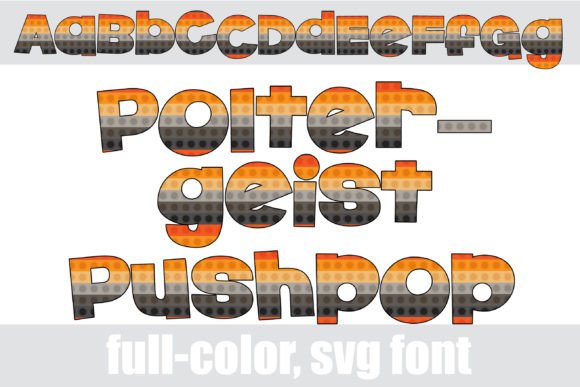
Unleash the Spooktacular Spirit: Poltergeist Pushpop Font - A Bewitching Typeface for Hauntingly Creative Designs
As darkness descends and the veil between worlds thins, let the Poltergeist Pushpop Font cast its spell on your Halloween designs. This spellbinding typeface, conjured by the masters of Illustration Ink, exudes an eerie charm with its vibrant and devilishly delightful hues.
Crafted with the essence of the supernatural, Poltergeist Pushpop Font is the perfect tool to materialize your haunting visions. Bathe your posters, invitations, and social media graphics in an otherworldly glow, leaving your audience spellbound.
Imagine the spine-tingling thrill of crafting a poster that pulsates with the vibrant energy of popping candies, each letter a delectable morsel of Halloween delight. Or envision creating invitations that transport your guests to a haunted carnival, where every word dances with macabre merriment.
The Poltergeist Pushpop Font is not merely a font; it's a portal to a realm where creativity and enchantment collide. Its full-color glory, powered by OpenType SVG technology, breathes life into your designs, transforming them into mesmerizing works of art.
Open the gates to a world of endless possibilities with Poltergeist Pushpop Font. Let your imagination run wild as you conjure captivating logos, enchanting website headers, and spellbinding social media posts. Its versatility is as boundless as the haunted moors on a moonlit night.
Conjure a symphony of colors that captivates and enchants. From the inky depths of a raven's wing to the blazing orange of a jack-o'-lantern, the Poltergeist Pushpop Font's palette ignites the imagination.
Embrace the supernatural allure of the Poltergeist Pushpop Font. It's more than just a font; it's a gateway to a world where creativity and enchantment reign supreme. Dare to unlock its magic and let your designs dance with the spirits of the night.